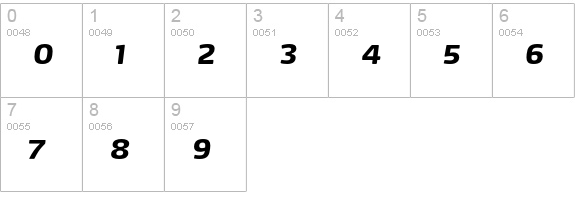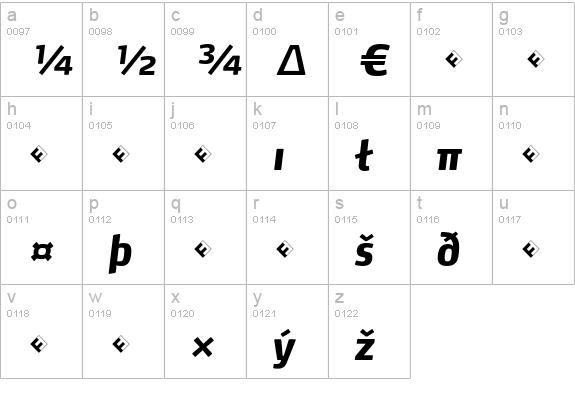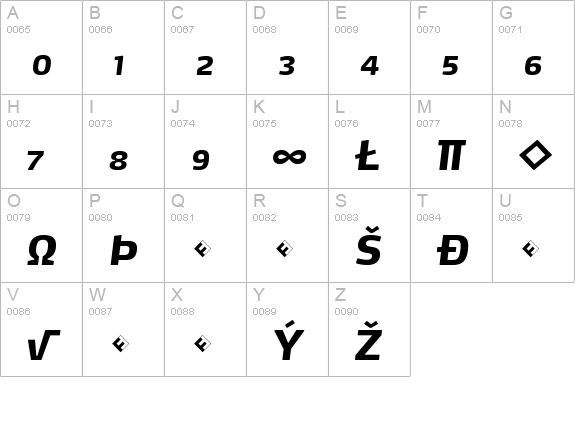
Introducing Max-ExtraBoldItalicExpert, a striking and impactful font that demands attention with its bold and italic design. Perfect for making a statement or adding emphasis to your projects, this font exudes confidence and style. The expertly crafted curves and sharp angles of Max-ExtraBoldItalicExpert make it a versatile choice for a wide range of design applications. What's even better is that Max-ExtraBoldItalicExpert is available for free download at FontsMarket.com. You can easily enhance your projects with this eye-catching font without any cost. Stand out from the crowd and elevate your designs with the bold and expressive Max-ExtraBoldItalicExpert font. Download it today and unleash your creativity!